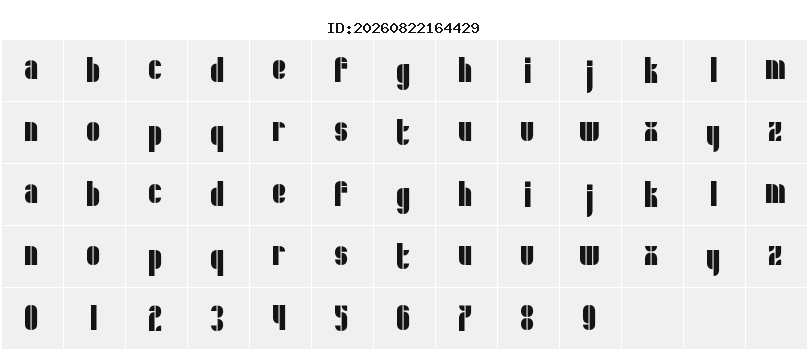
Schrofer Preview
• Font Name: Schrofer
• Full Font Name: Schrofer
• PostScript Name: Schrofer
About Schrofer.otf
Schrofer.otf is a modern, elegant sans-serif font designed for ultimate readability and visual harmony. Perfect for branding, headlines, web design, and print materials.